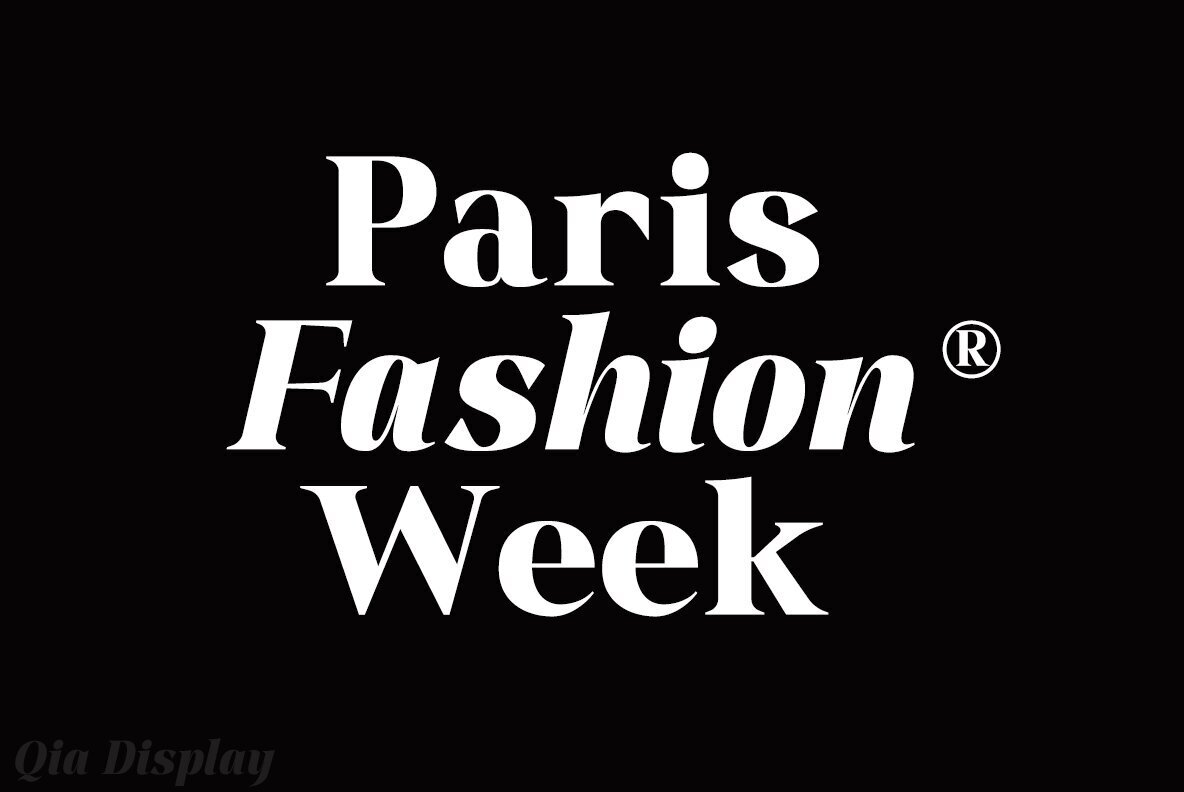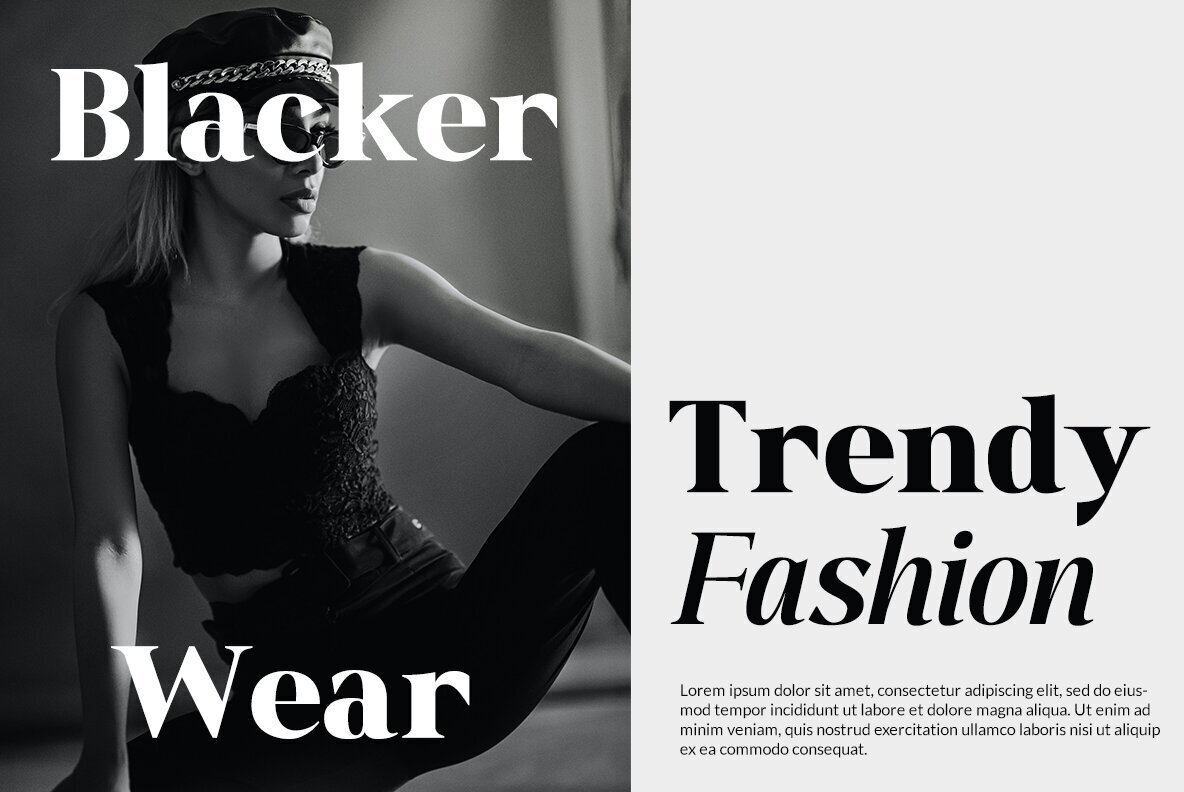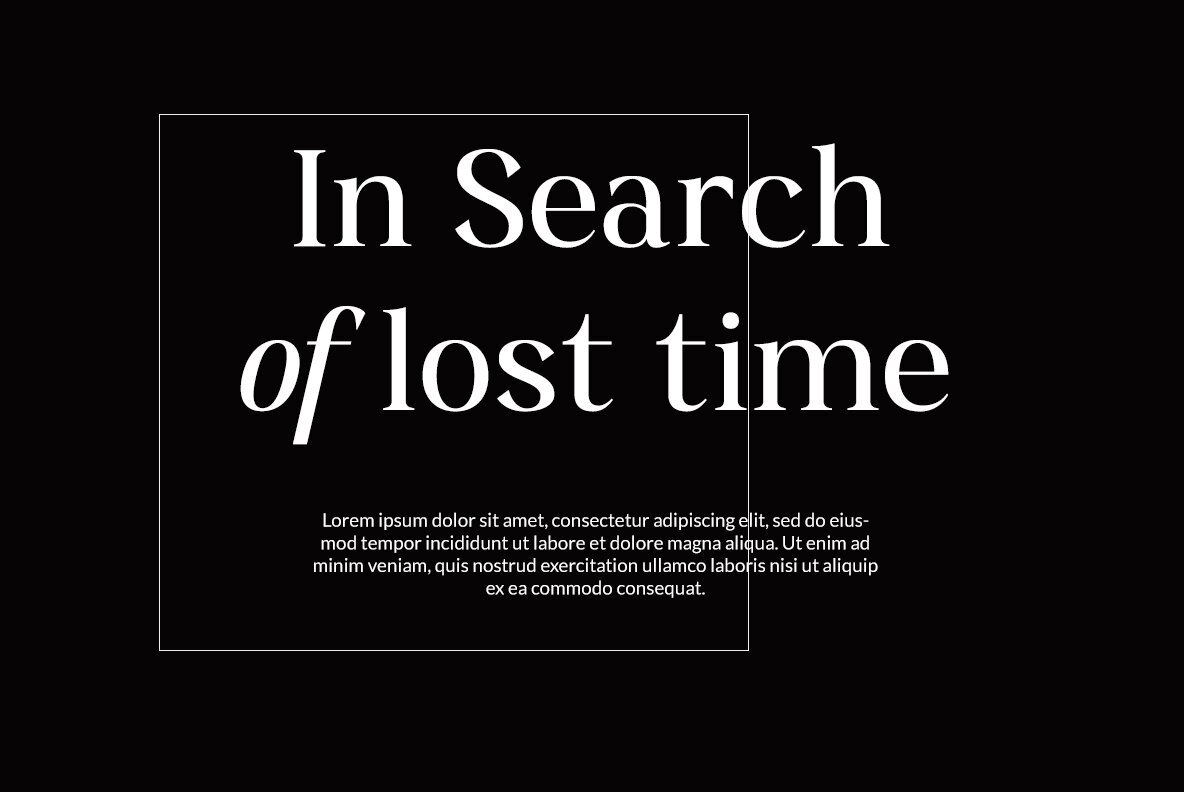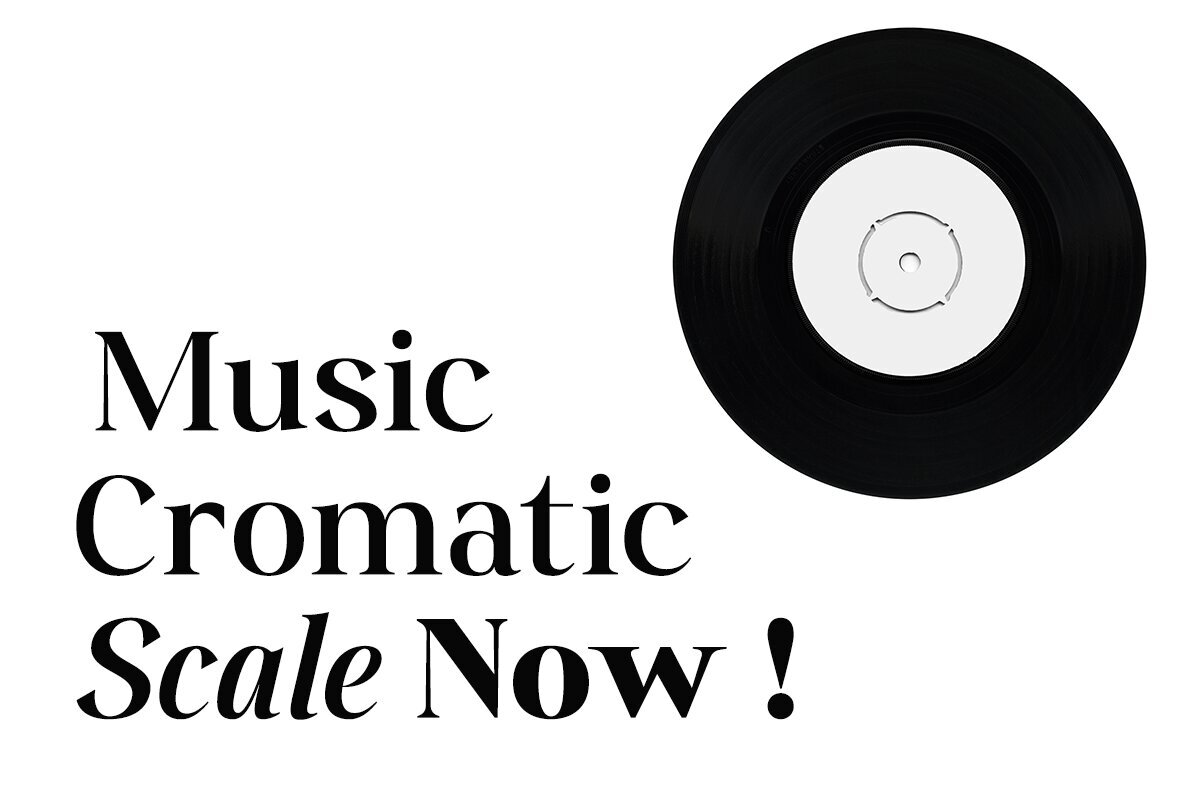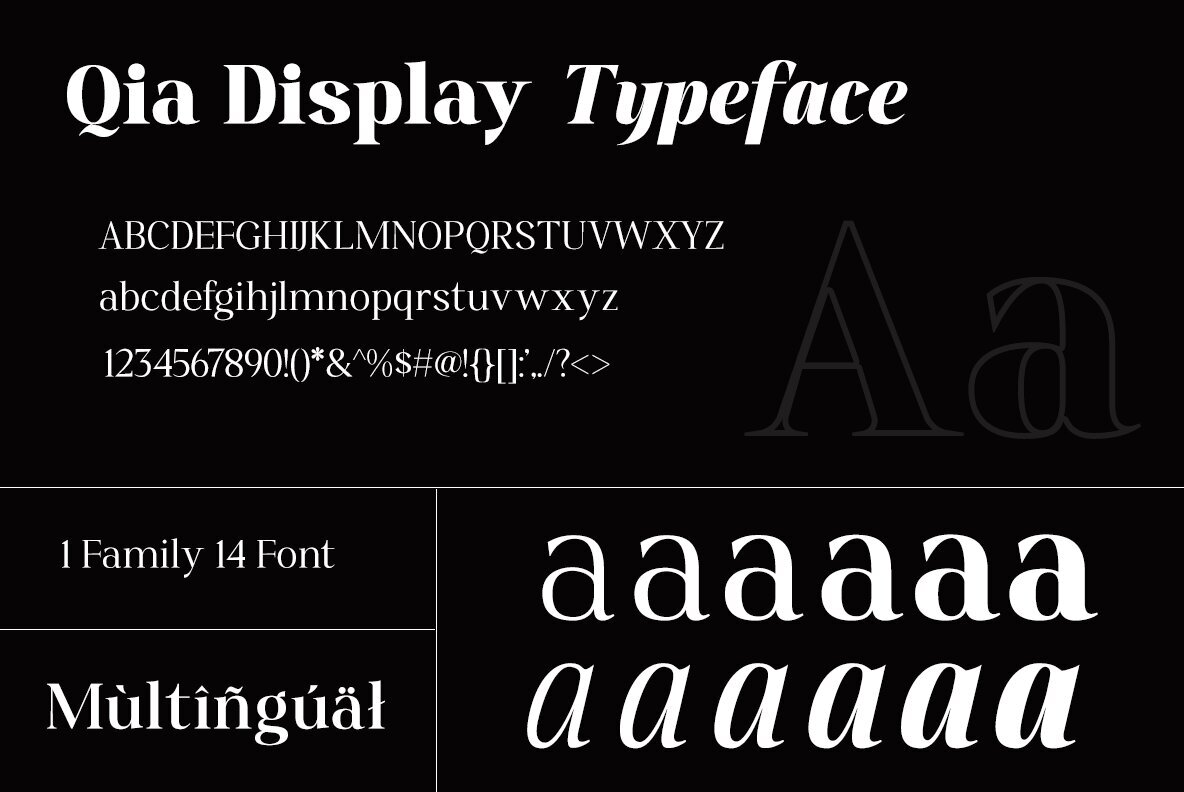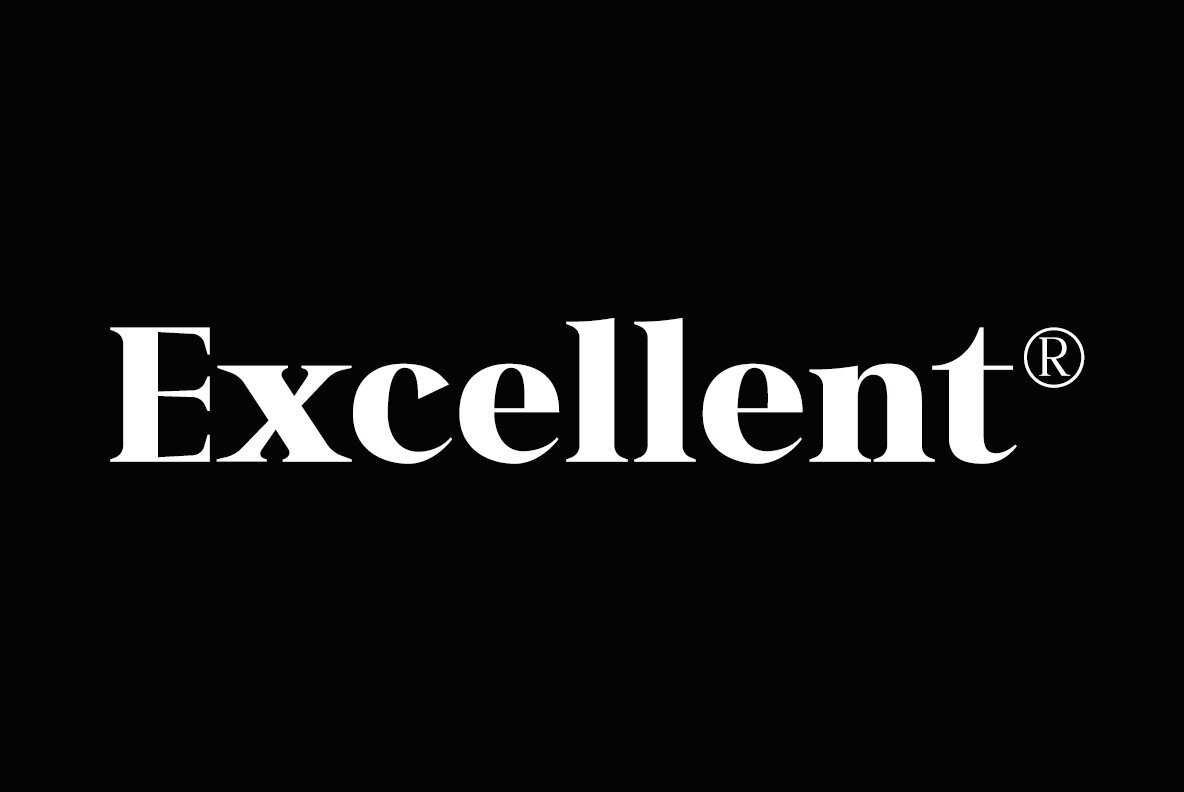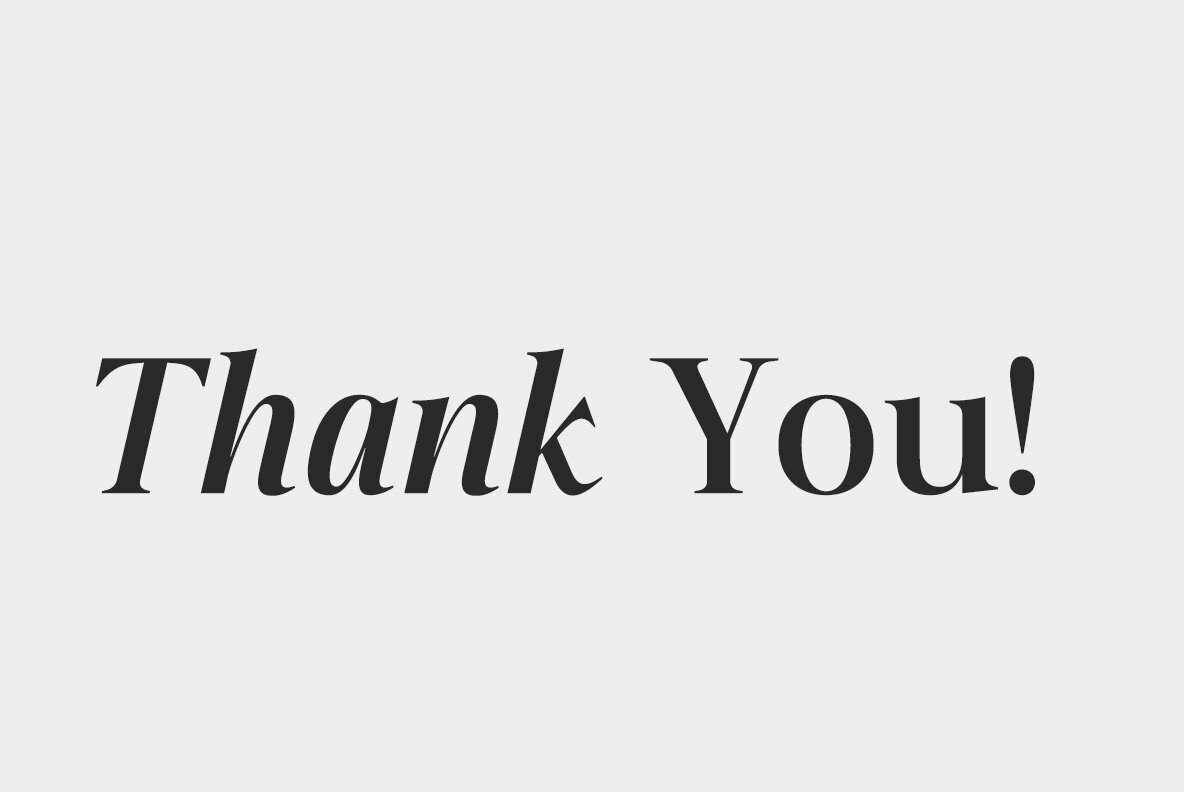
Qia Display Font
Qia Display is a modern serif font that exudes elegance and charm through its meticulously crafted characters. Ideal for luxury logos, branding, and classy editorial designs, it's a perfect choice for anyone involved in the fashion industry, women's magazines, or cosmetic brands. Its sophisticated style enhances promotional designs and creates a timeless aesthetic that's sure to captivate audiences.
This versatile font includes a full set of lowercase and uppercase characters, numbers, punctuation, and a variety of standard ligatures, ensuring a seamless design experience. Additionally, it offers a selection of international characters, making it suitable for multilingual applications and broadening its usability across diverse projects. Embrace the sophistication of Qia Display for projects that require a touch of class and refinement.